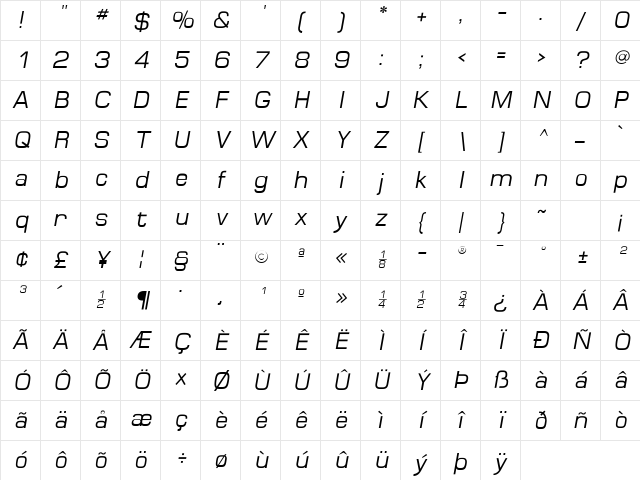
MicroFLF Regular Free Font
MicroFLF Regular
Design Context for MicroFLF
MicroFLF is a composed and adaptable typeface that performs quietly and consistently across a wide range of design contexts.
Pro Tip: Use MicroFLF in both headline and body roles to test its range before committing to a single application.